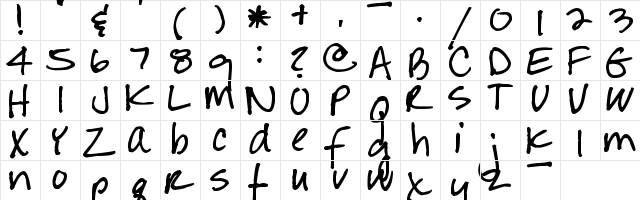
Pea Jean Regular Font Preview
Pea Jean Regular
Design Context for Pea Jean Typeface
Pea Jean is a composed and adaptable typeface that performs quietly and consistently across a wide range of design contexts.